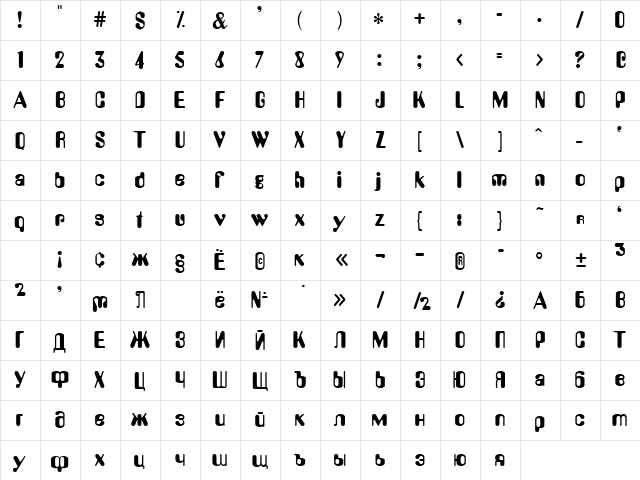
LidaDi Regular
Design Context for LidaDi Typeface
LidaDi is a composed and adaptable typeface that performs quietly and consistently across a wide range of design contexts.